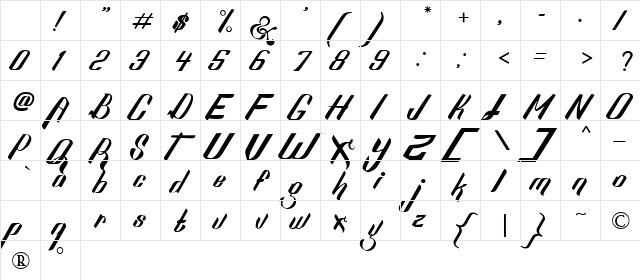
Complete Sexy Shout glyph index. Displaying only characters natively supported by Sexy Shout font.
Sexy Shout is a composed and adaptable typeface that performs quietly and consistently across a wide range of design contexts.
Pro Tip: Use Sexy Shout in both headline and body roles to test its range before committing to a single application.